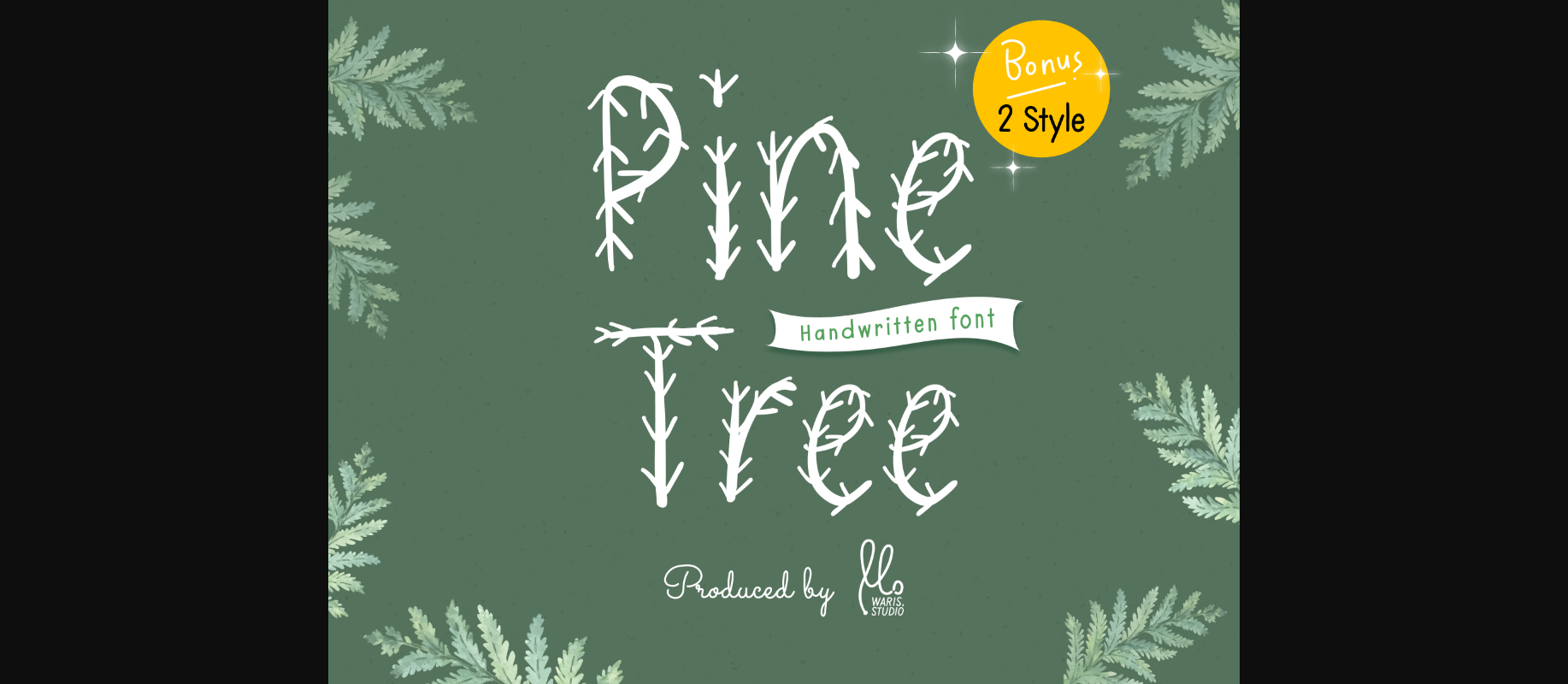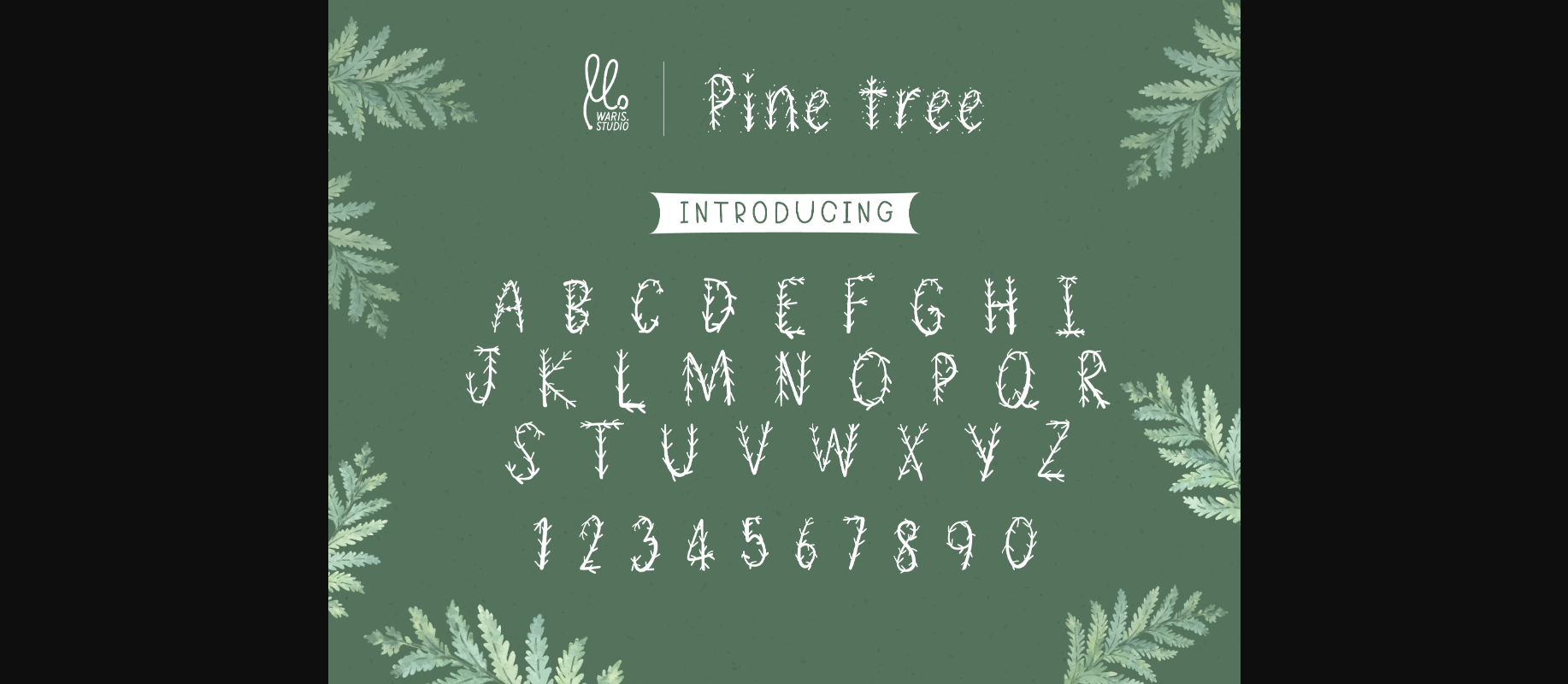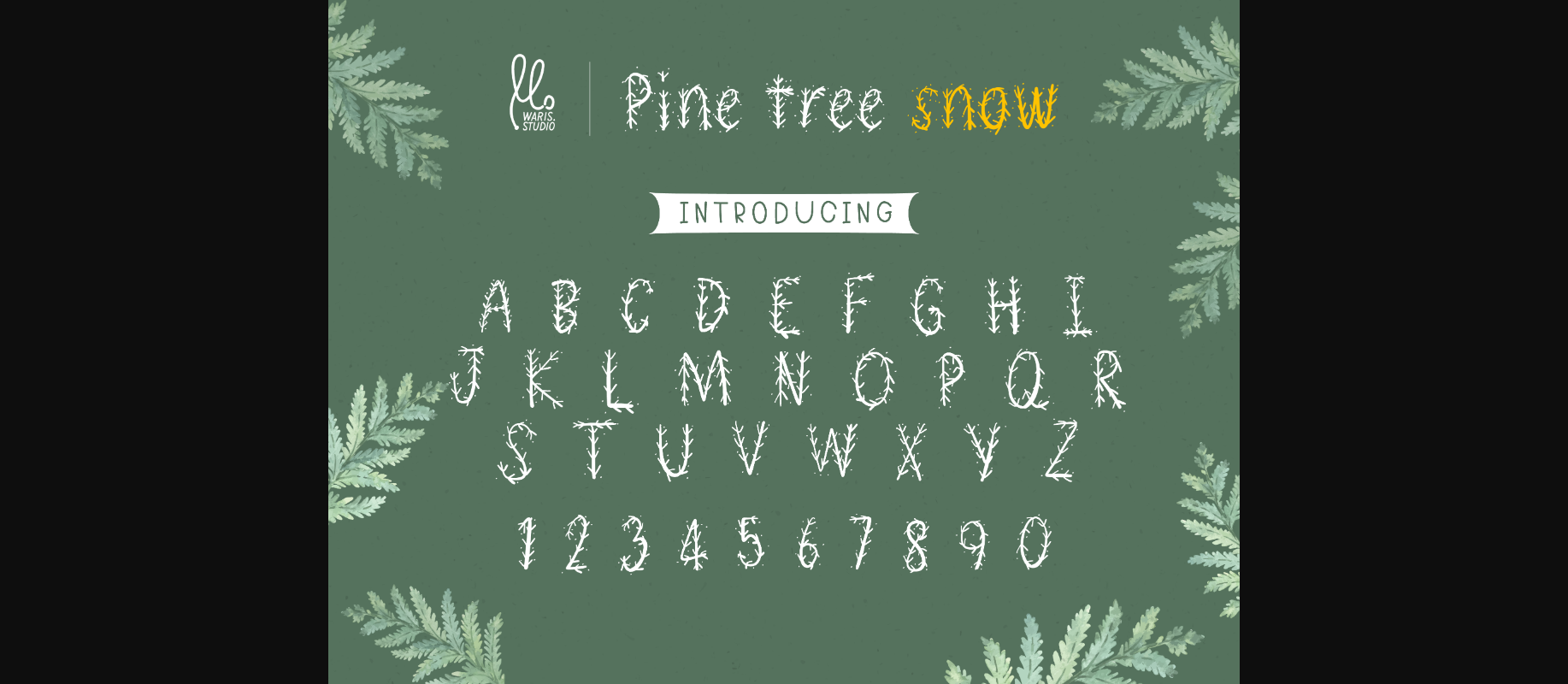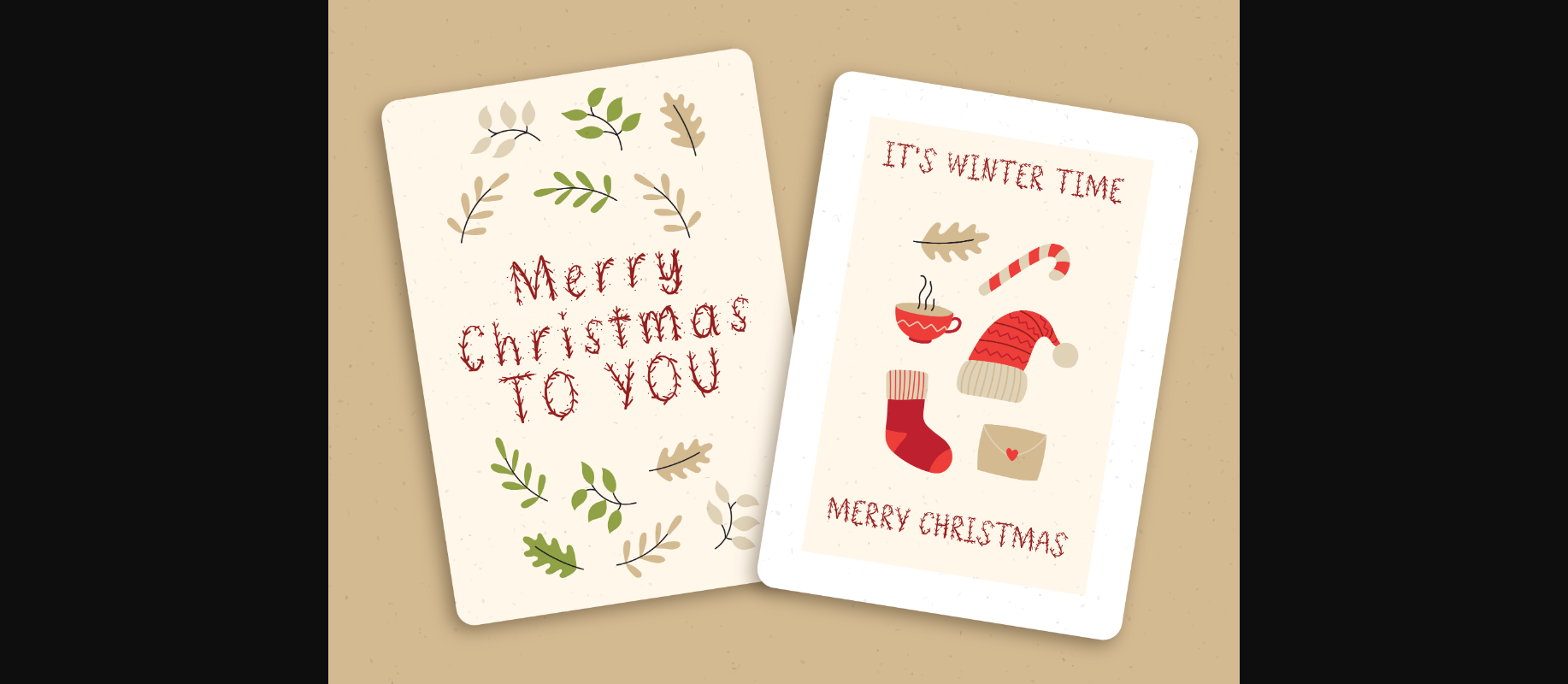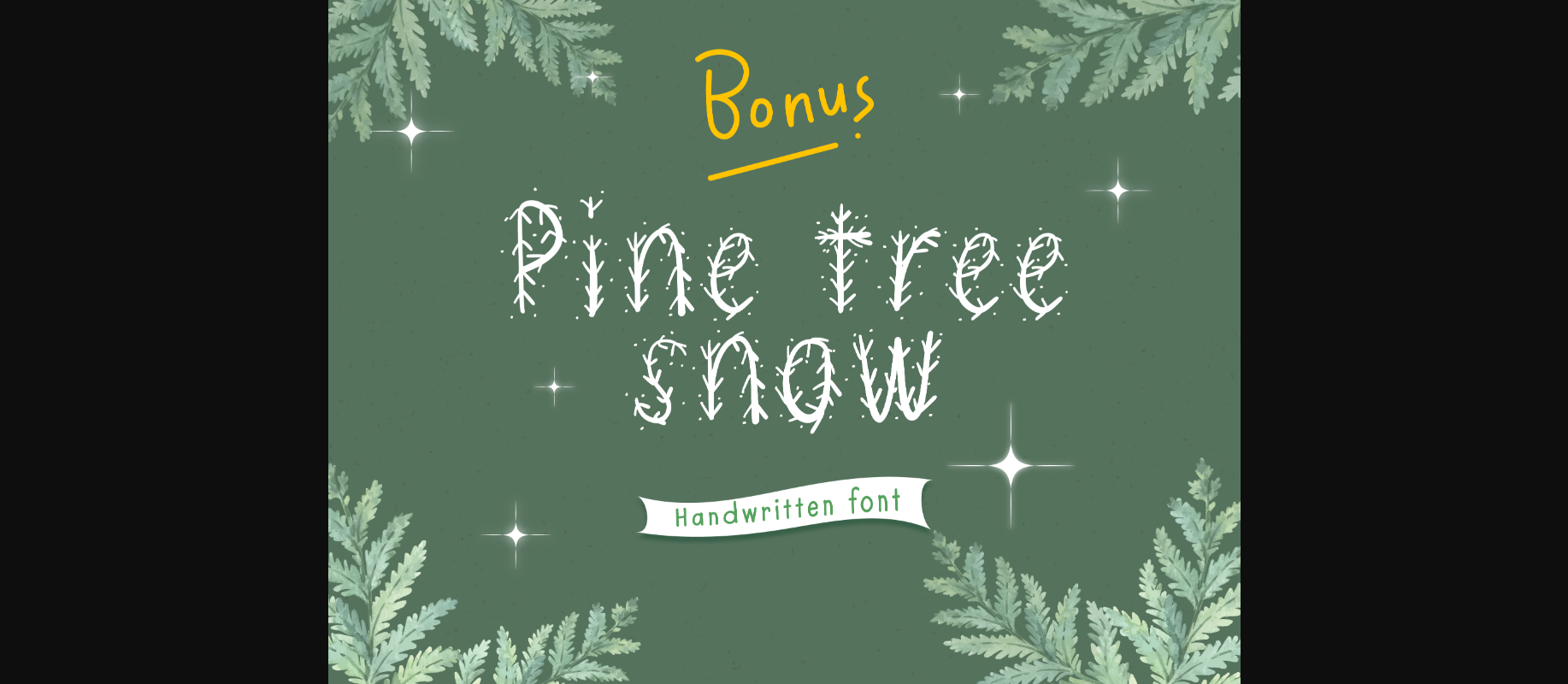
HomeDecorative FontsPine Tree Font Decorative Fonts Pine Tree Font FacebookXPinterestWhatsApp 1 of 7 ... Pine Tree Font Poster 2... Pine Tree Font Poster 3... Pine Tree Font Poster 4... Pine Tree Font Poster 5... Pine Tree Font Poster 6... Pine Tree Font Poster 7... About Pine Tree Font Pine Tree font is great for your holiday projects. Use it for Christmas cards, winter crafts for decor, and more! DOWNLOAD NOW People also explored Holiday Font Jegasup Font Toverheks Ignore Me Font Cosyande Font Angellonia Font Margetha Font Dandeline Font Shooting Star Font 337 0 TagsPine Tree Font Previous articleValentine Penquin FontNext articleArmy Skull Font LEAVE A REPLY Cancel reply Comment: Please enter your comment! Name:* Please enter your name here Email:* You have entered an incorrect email address! Please enter your email address here Website: Save my name, email, and website in this browser for the next time I comment. Personal Use Free Hysteria Santa Personal Use Free Read more about this font Sarwendah Personal Use Free Read more about this font England Personal Use Free Read more about this font Oaklevin Personal Use Free Read more about this font BLOG Best Fonts for T-Shirt Design – Top 2025 Picks In 2025, t-shirt design has become more than just fashion—it's a form of self-expression. Whether you're... Fonts That Capture the Spirit of New York City Free Fonts Risk: Why Free Fonts Can Be Dangerous for Designers Where to Buy American Fonts Online in 2024